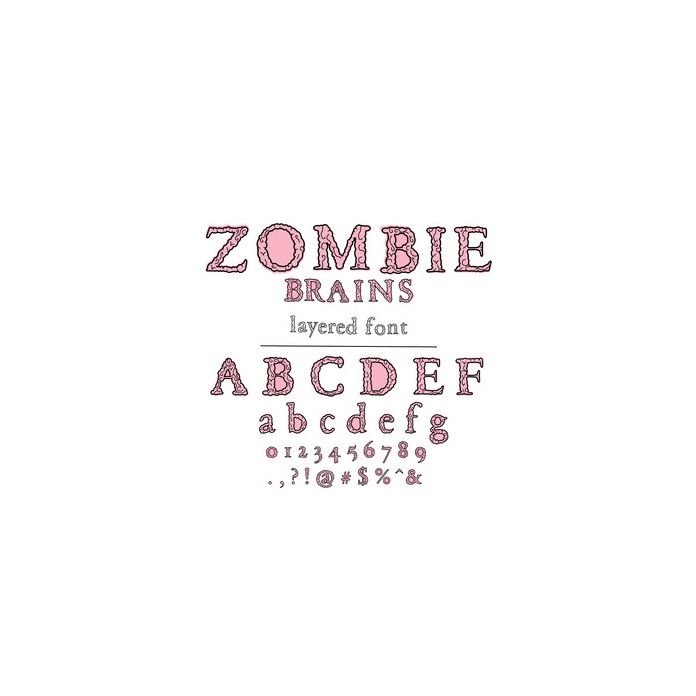
Zombie Brains Layered Font. Hand drawn font, including two versions of each upper and lower case letters, numbers and glyphs. A solid mat and zombie brain overlay for each letter, number and glyph. Letters are set up as alternates and can all be accessed via the glyphs pattern. Can be used lined up or offset for different effects!